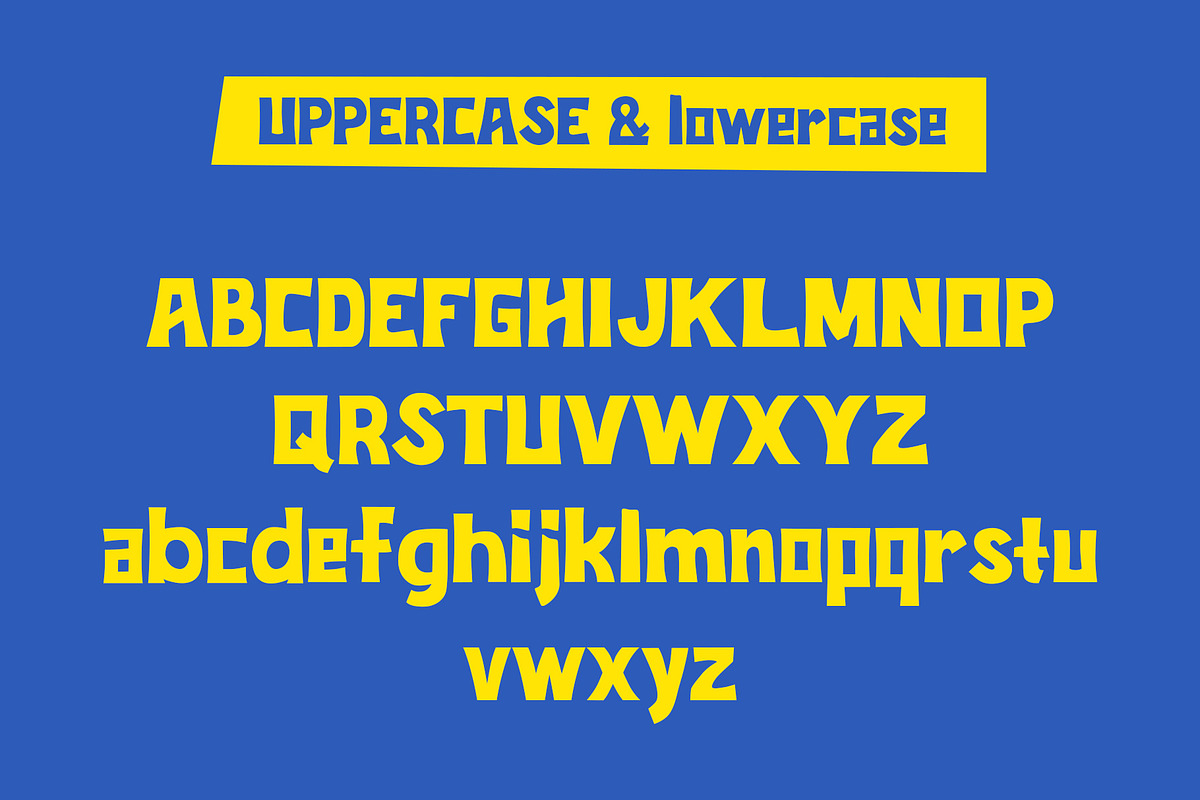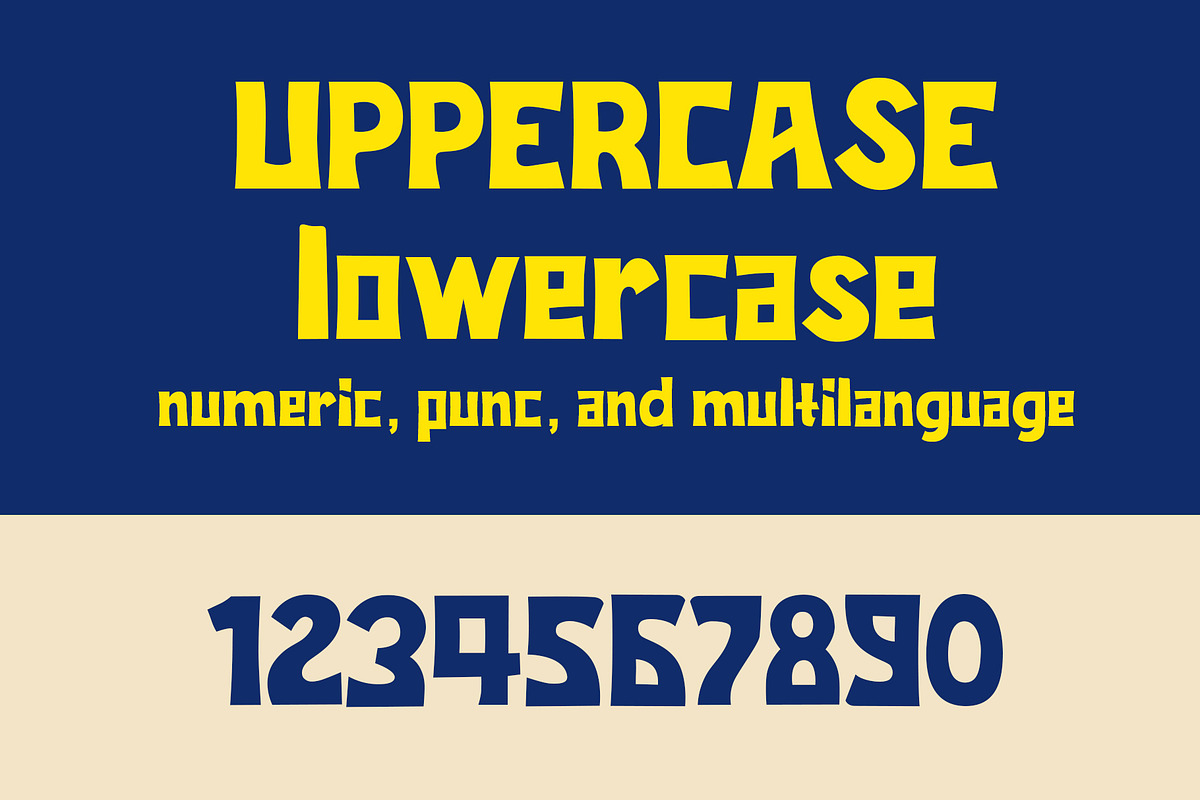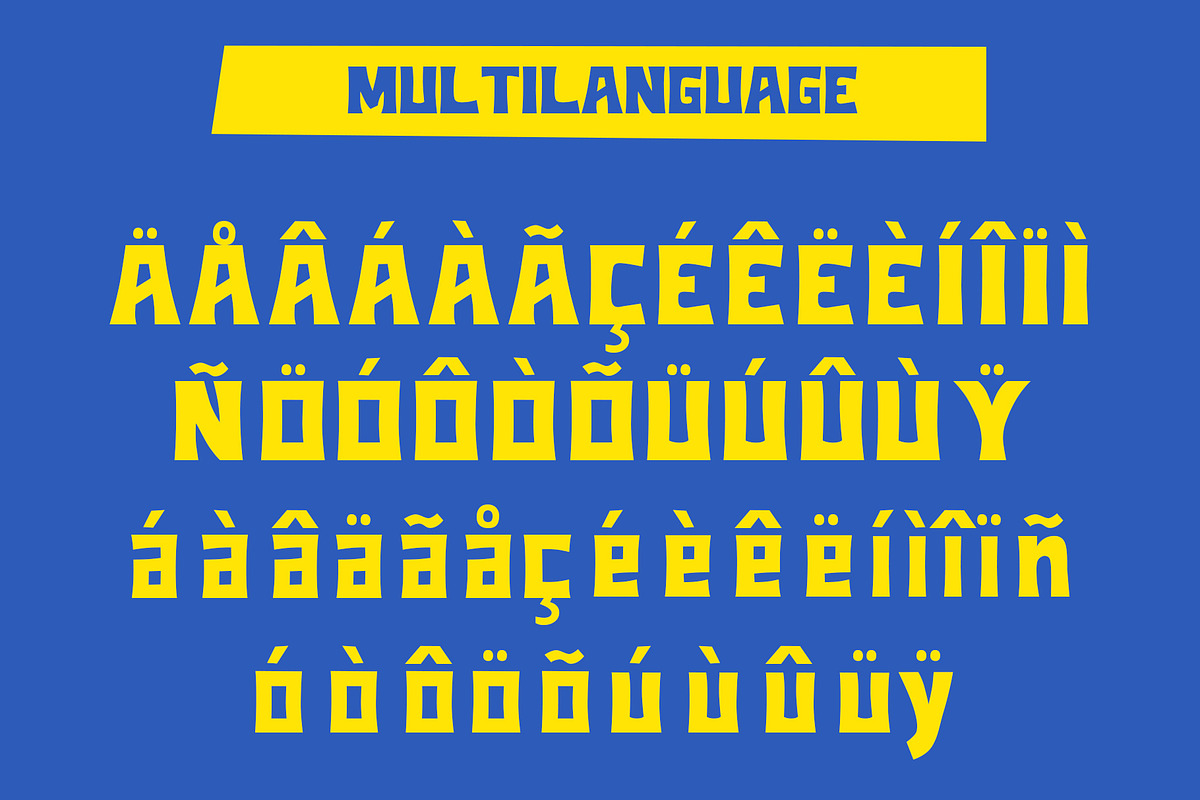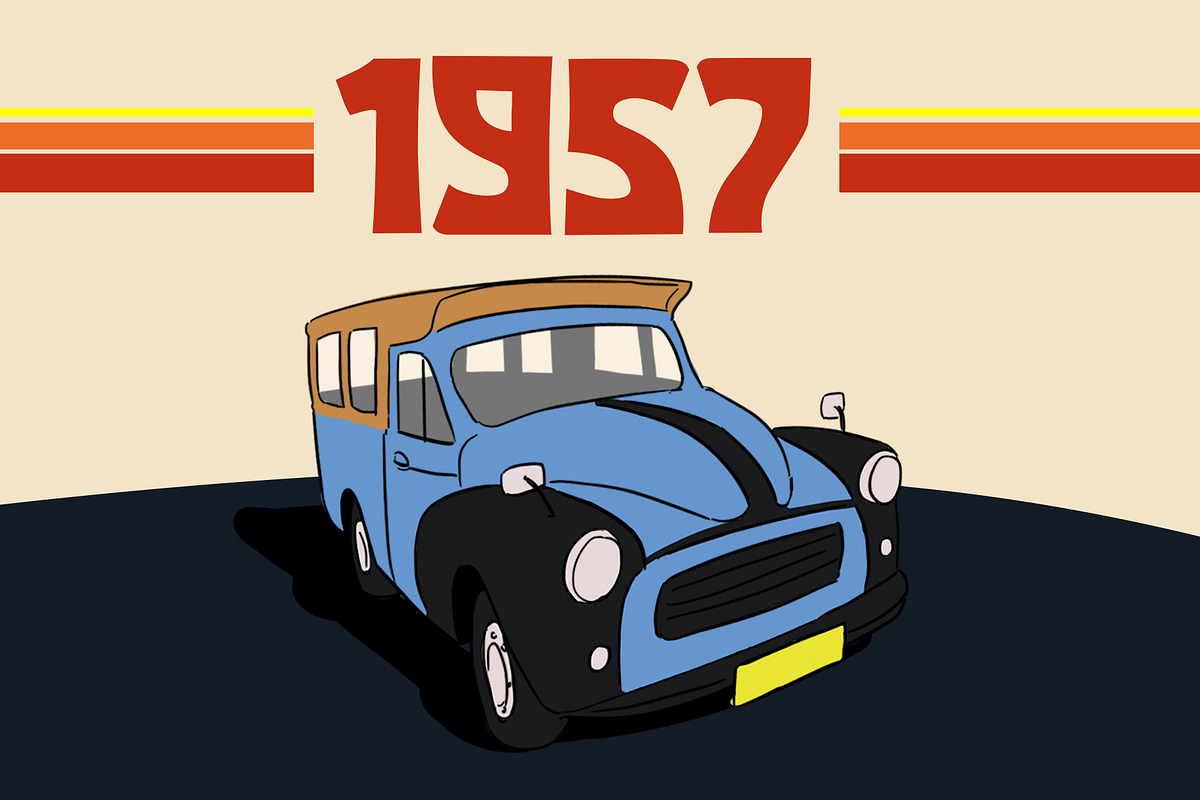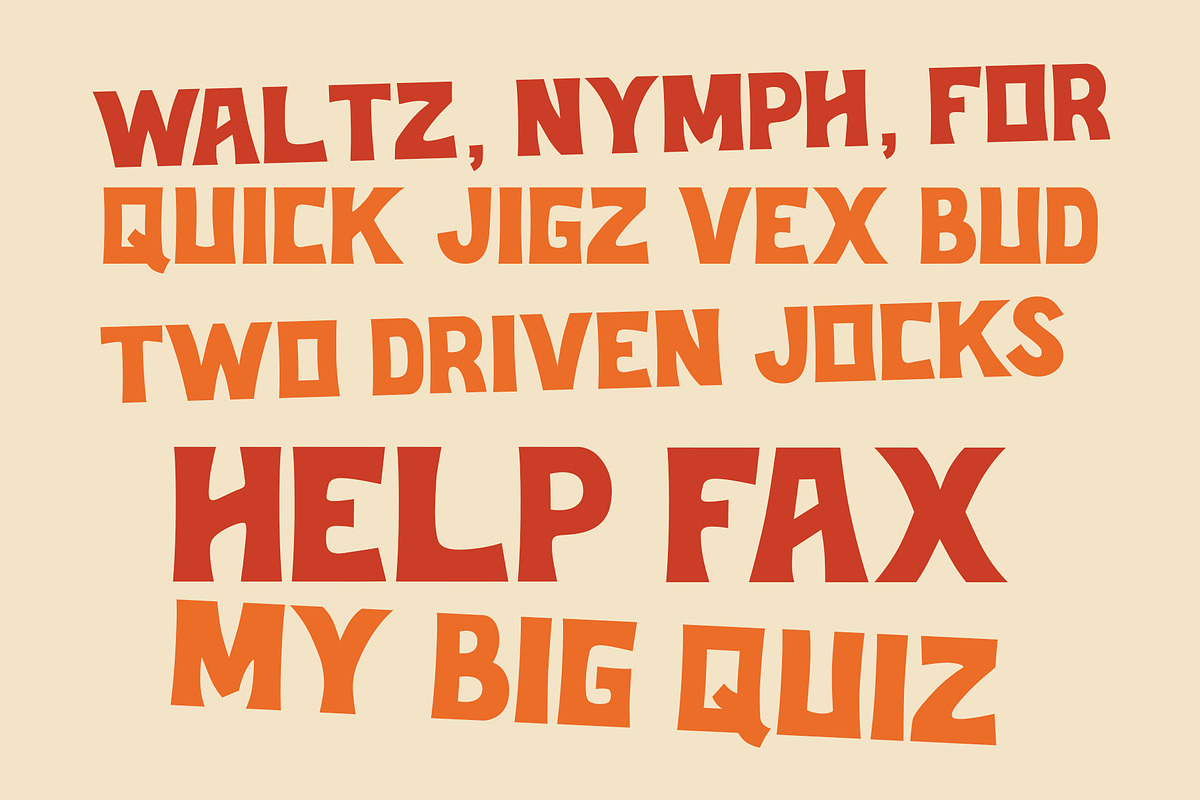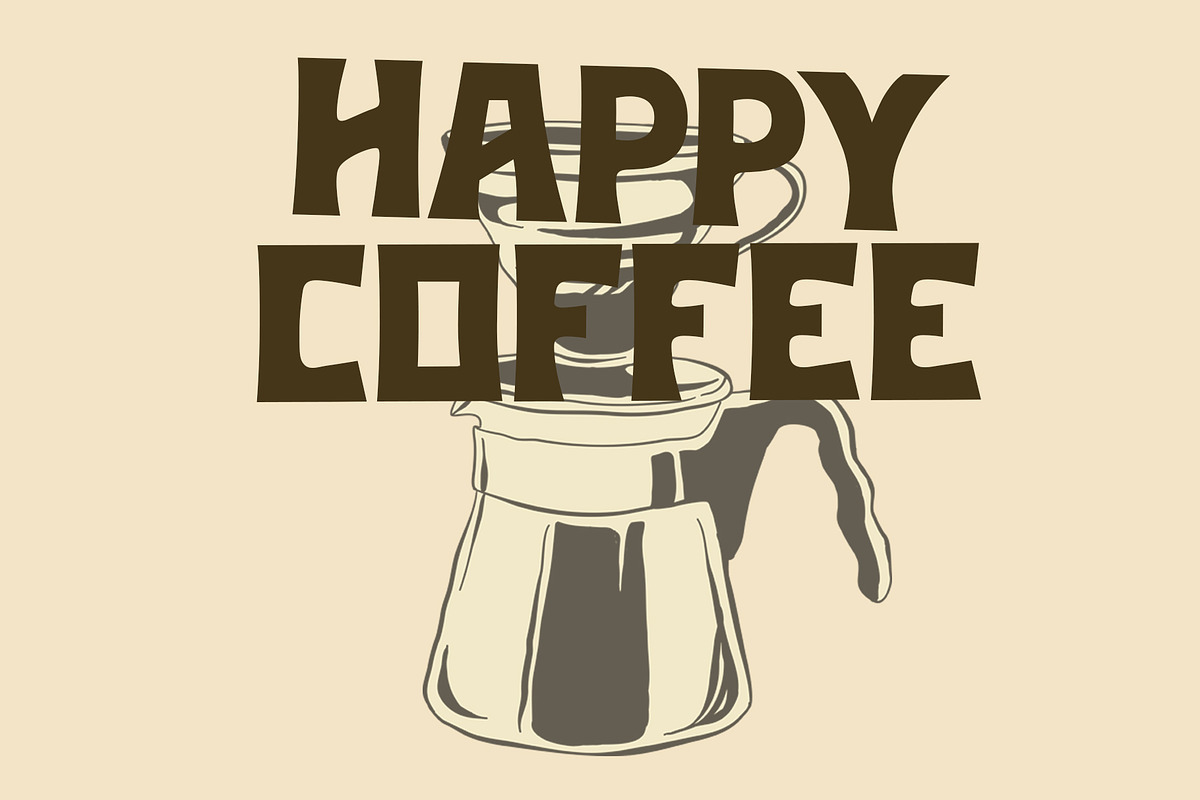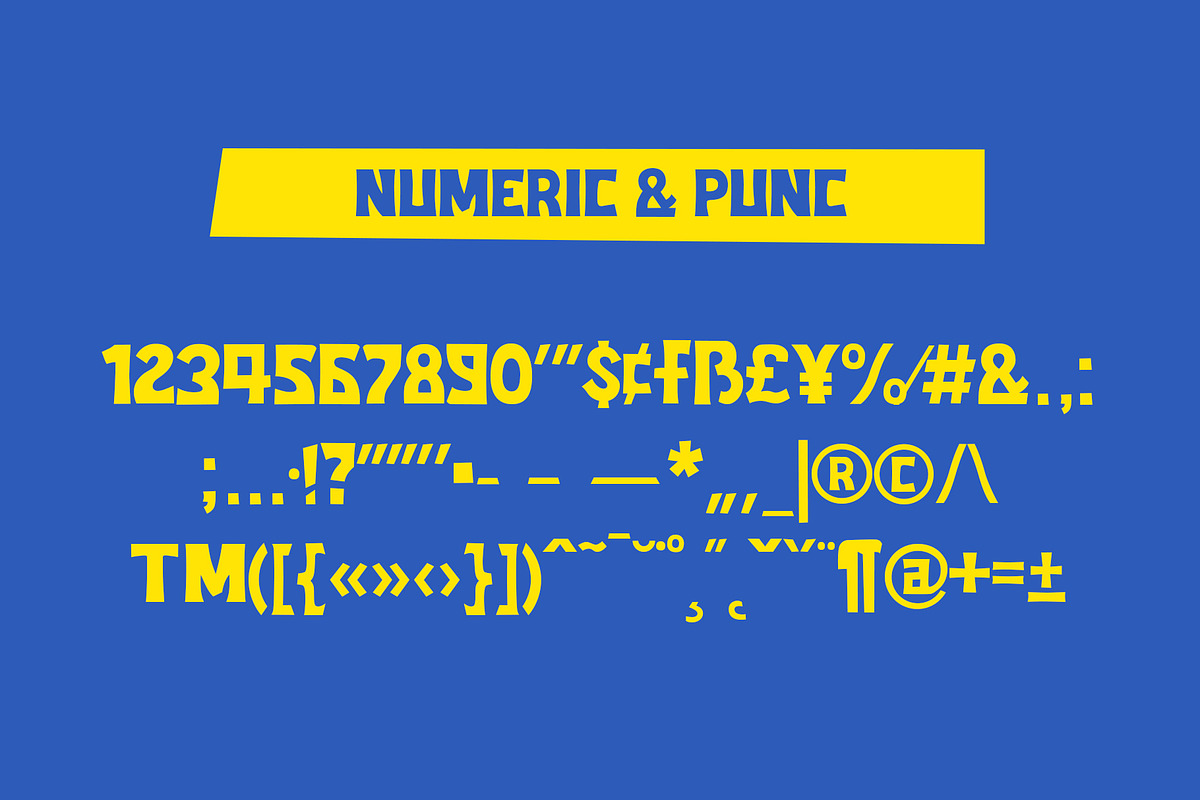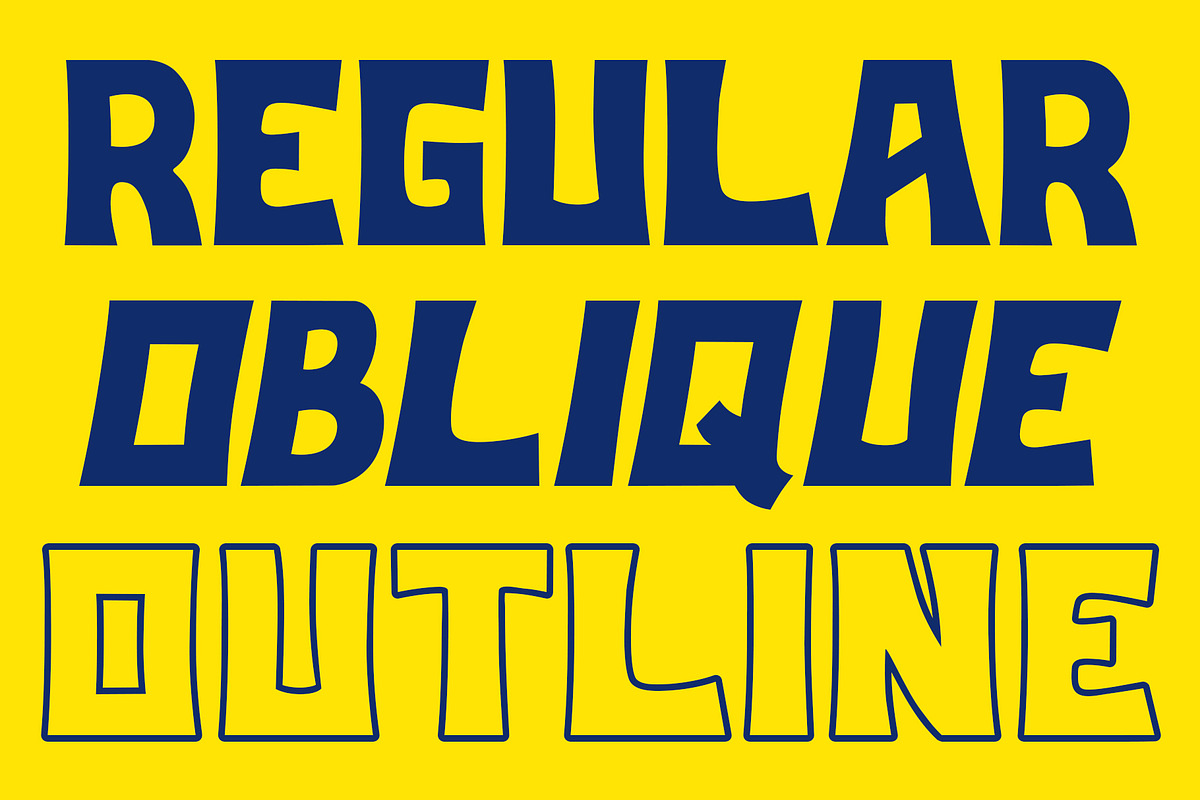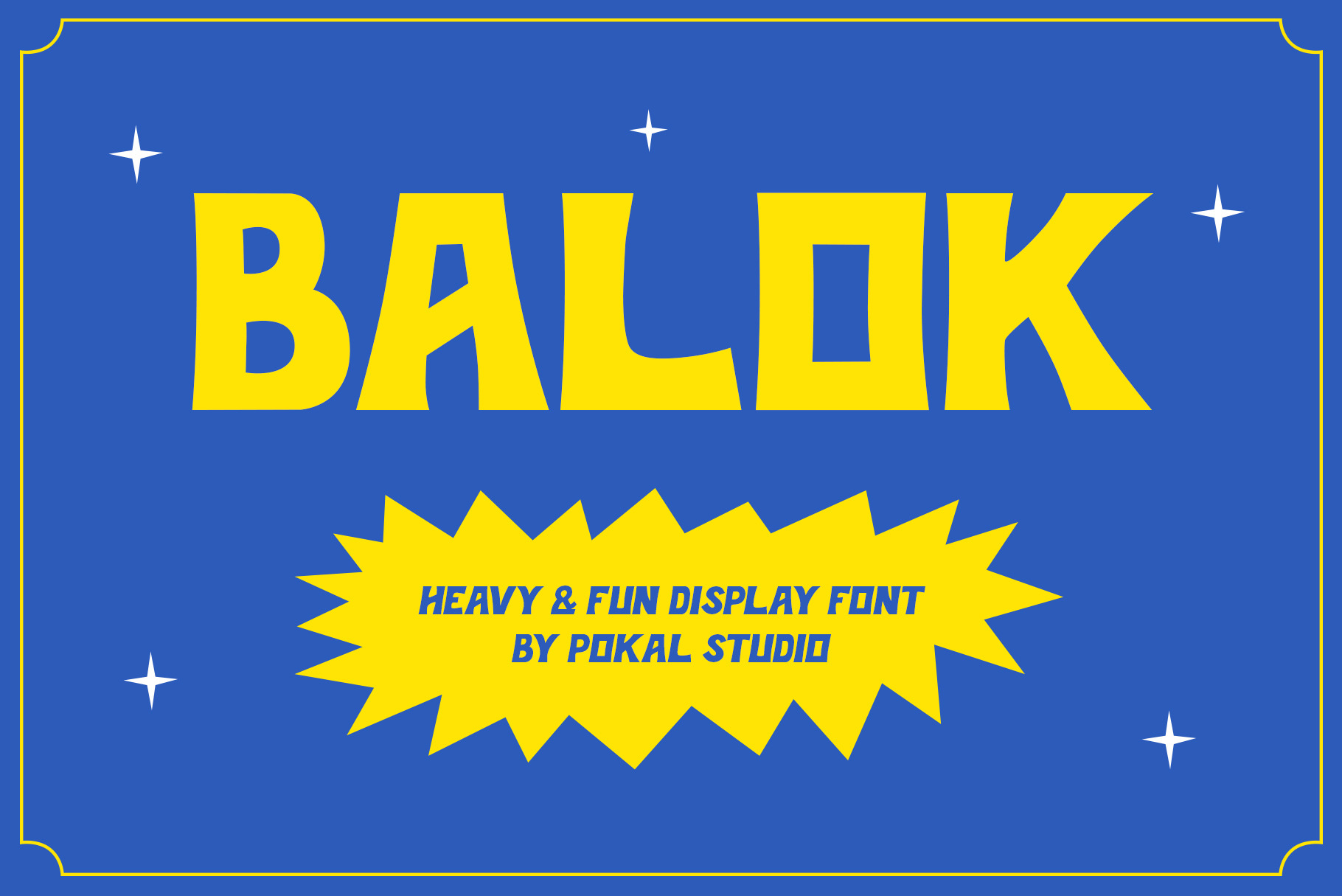
Balok Display Font
Balok is a heavy, fun, and comical display font design, The name Balok actually means brick in the Indonesian language, which describes the heaviness but still fun and quirky look of this font. Suitable for large displays, posters, logotypes, headlines, and also merchandise.
Balok display font is available in 3 styles, regular, oblique, and outline. Contains uppercase, lowercase letters, punc and numerals, also foreign characters.